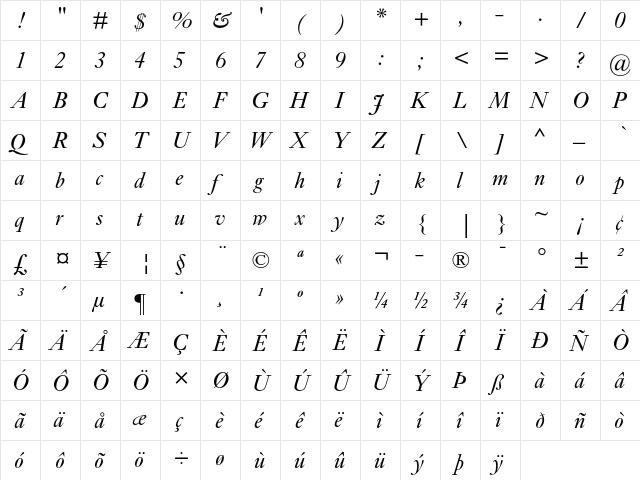
Ehrhardt MT Italic
Design Context for Ehrhardt MT Typeface
Ehrhardt MT is a composed and adaptable typeface that performs quietly and consistently across a wide range of design contexts. The slanted form adds forward momentum and visual energy.
Pro Tip: Try Ehrhardt MT for annotation and caption copy alongside an upright companion — the contrast in angle creates a dynamic but ordered typographic system.